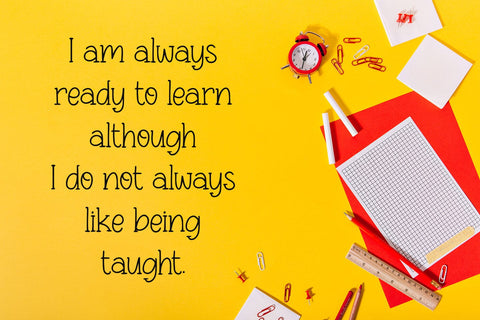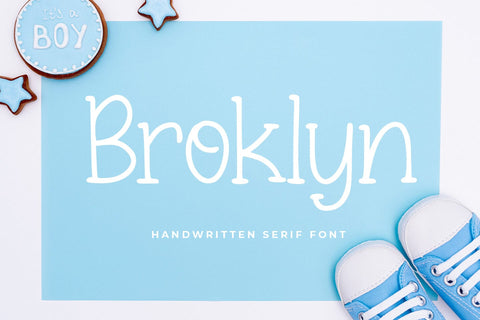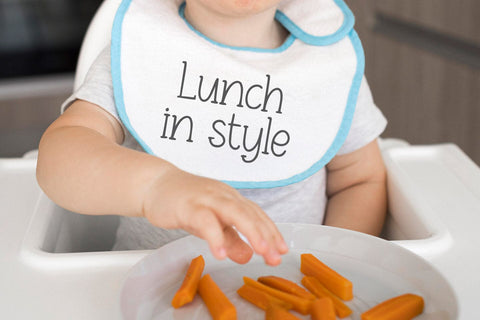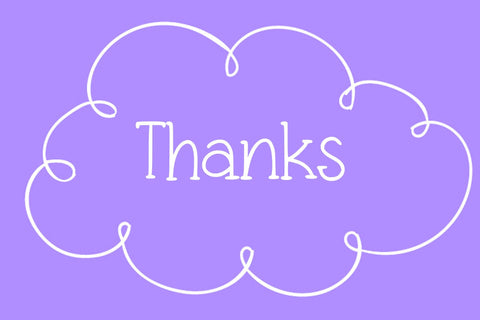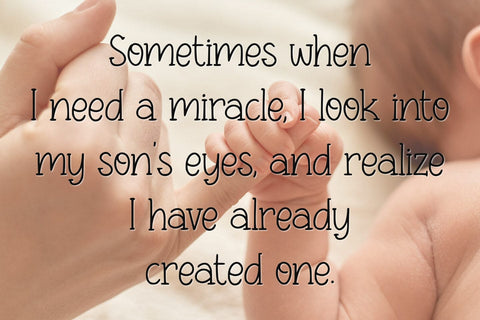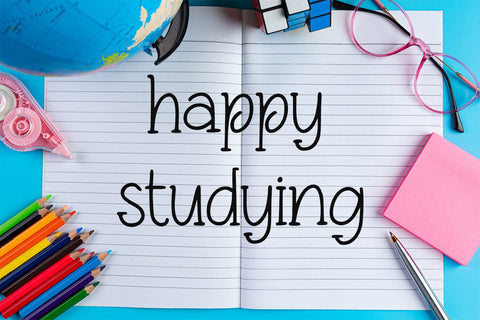
Broklyn
introducing
BROKLYN
- handwritten serif font-
BROKLYN is cute serif font.
It is great for notes, branding, quotes, t-shirt designs, tote bag designs, cards, text, banners, social media, and more.